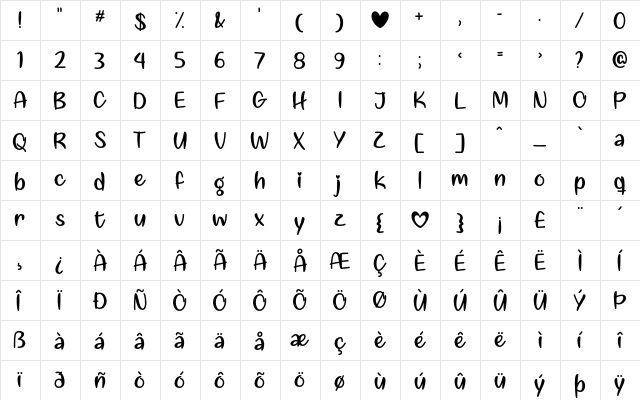
Liebe finden Regular
Design Context for Liebe finden Typeface
Liebe finden is a composed and adaptable typeface that performs quietly and consistently across a wide range of design contexts.